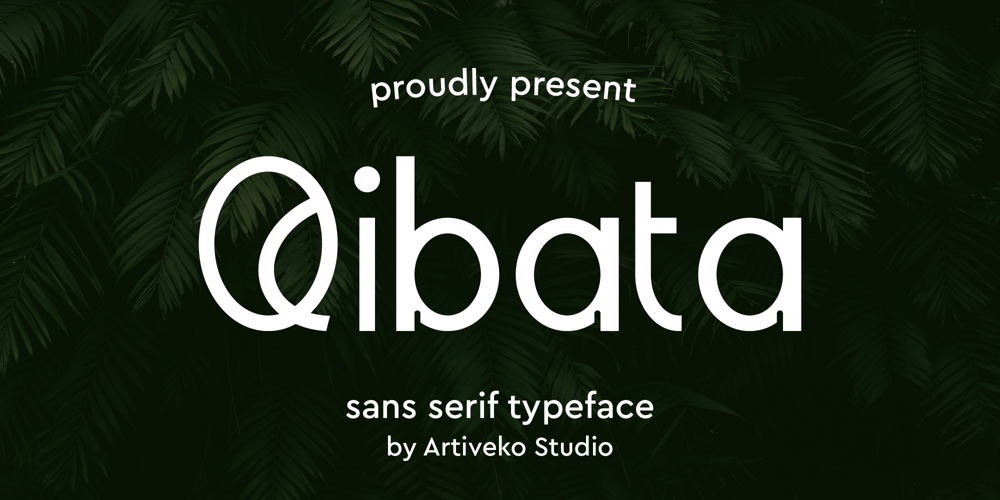
Qibata Font Family was designed by Iwan Alwan and published by Artiveko. Qibata contains 2 styles and family package options. Qibata, a masterpiece crafted by the talented Iwan Alwan, is not just your ordinary sans serif font; it’s a testament to simplicity with a twist of uniqueness.Its sleek lines and minimalist design are coupled with a subtle yet captivating variation between uppercase and lowercase letters, giving each character its own personality. But what truly sets Qibata apart is its unwavering commitment to inclusivity, boasting robust multilingual support that bridges linguistic gaps with effortless grace. Whether it’s English, French, Spanish, or beyond, Qibata stands ready to elegantly convey your message to the world. In a sea of fonts, Qibata emerges as a beacon of versatility and style, a true gem in the realm of typography.